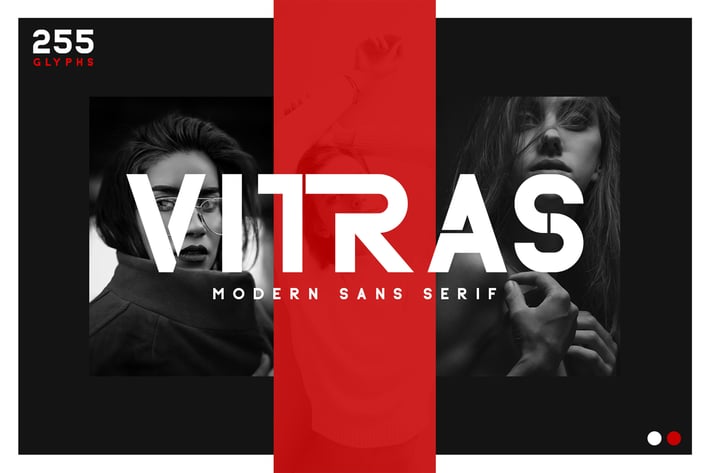
Vitras Sans Serif Font
Vitras Sans Serif is a balanced, and stylish sans serif font. He has a beautiful character. Very suitable to be combined with invitation card designs, company logos, magazines, business cards, book titles, brand names and various other designs. Vitras Sans Serif is a balanced, stylish sans serif font. Its stylish alternation and binding make this font the perfect partner for any project.
- Uppercase and lowercase
- Numbering and Punctuation